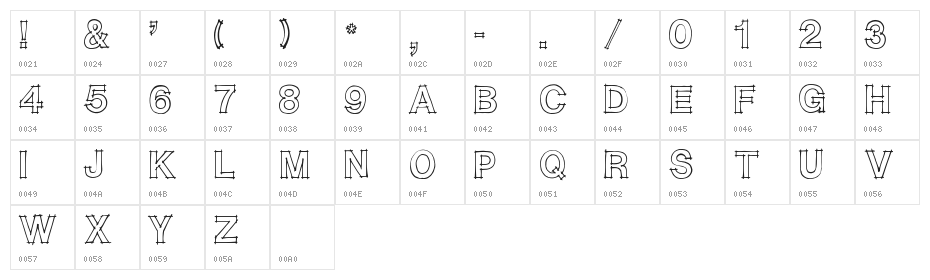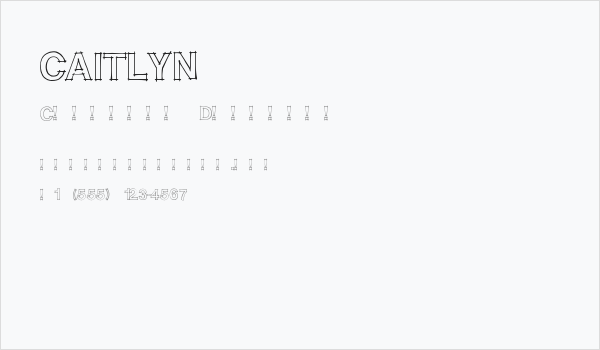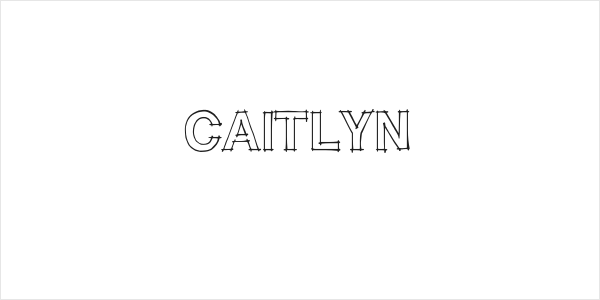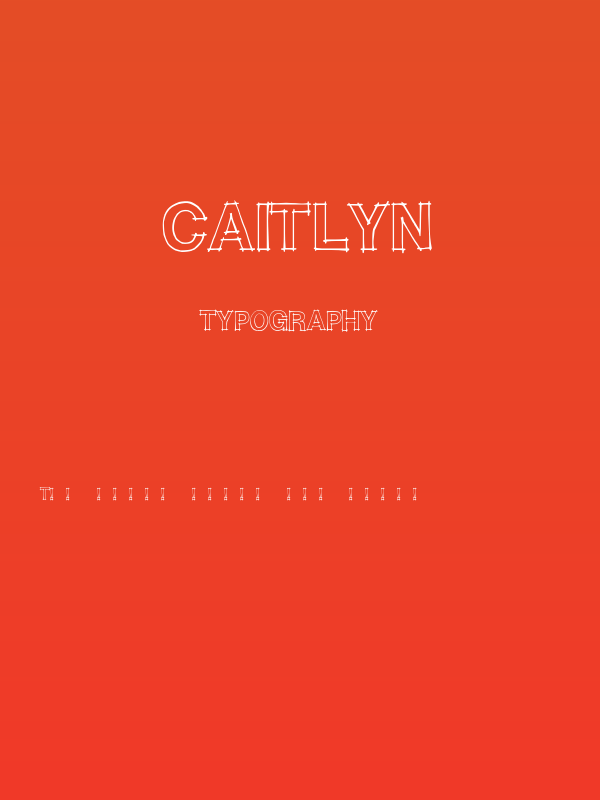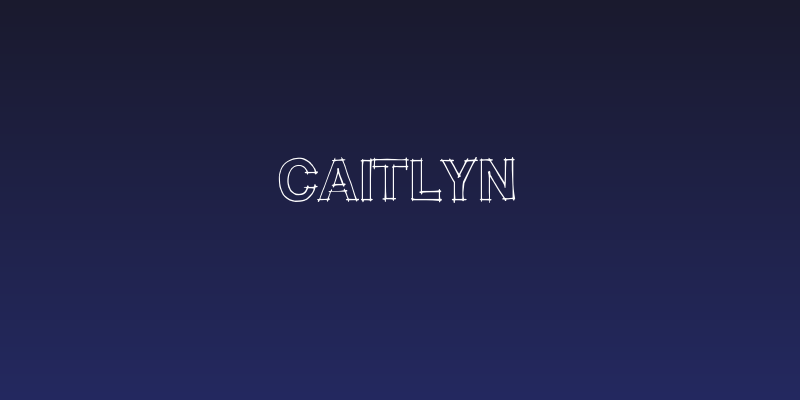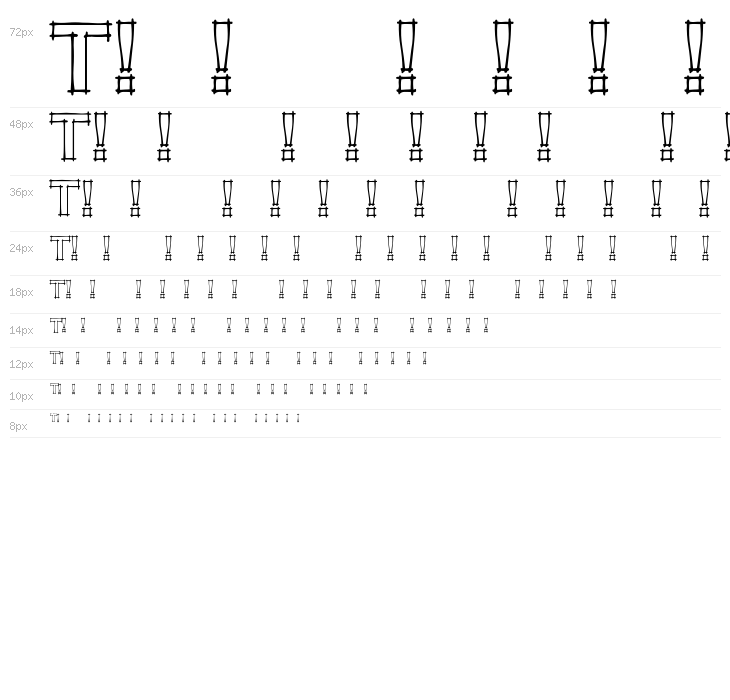
CAITLYN Font
CAITLYN Description
This font features a unique, playful design with a hand-drawn aesthetic. Each character is outlined with a bold, sketch-like quality, giving it a dynamic and energetic appearance. The letters are uppercase and have a consistent height, while the numbers and special characters maintain the same playful style. The font's lines are slightly irregular, adding to its whimsical charm. This design is perfect for projects that require a fun and informal touch, such as children's books, playful branding, or creative posters.
Overall StylePlayful, Whimsical
Proposed ProjectsIdeal for children's books, playful branding, creative posters, and informal designs.